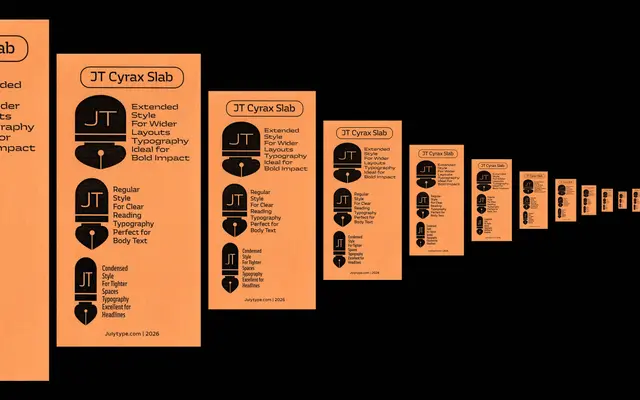
JT Cyrax Slab
July Type · Rafał Buchner
A squarish geometric slab with sci-fi leanings, drawn by Rafał Buchner across three widths and seven weights with matching italics.
Taking its formal cues from the squared letterforms of Eurostile and classic sci-fi film titles, this slab serif trades in boxy, precise construction with consistent technical refinement for screen and print. Three width variants — Condensed, standard and Extended — give the family genuine range across editorial, branding and display contexts. A variable font is also available, covering both weight and optical sizing axes.
Squarish, boxy letterforms with slab serifs draw directly from the squared grotesque tradition exemplified by Eurostile; the geometric, grid-like construction places it firmly in the geometric slab subcategory.